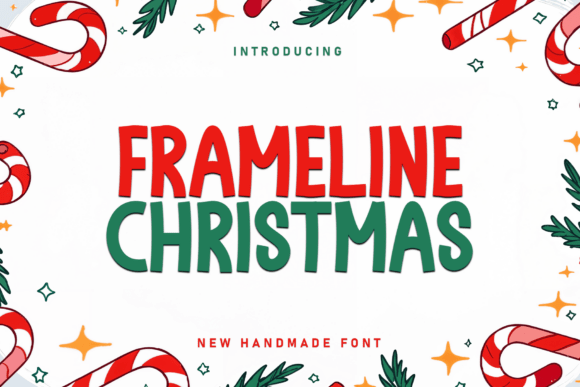
Introducing Christmas Frameline Font: The Ultimate Holiday Decorative Font
Are you looking for a font that embodies the spirit of Christmas? Look no further than Christmas Frameline Font, a festive, handmade font that’s bursting with playful holiday cheer. This bold, chunky, and whimsical font is designed to bring warmth and joy to all your seasonal creations, making it the perfect addition to your holiday design projects.
The Charm of Handmade Design
Christmas Frameline Font boasts a hand-crafted style that gives it a cozy, nostalgic charm. The font’s unique, handmade aesthetic makes it feel like a vintage holiday decoration, evoking memories of Christmases past. Yet, despite its classic look, the font remains super legible, ensuring that your holiday messages are conveyed clearly and effectively.
Ideal for Holiday Projects
Christmas Frameline Font is incredibly versatile and can be used for a wide range of holiday projects. Here are some ideas to get you started:
- Holiday Cards: Add a personal touch to your Christmas cards with this charming font. Use it for the main message or as a decorative element to make your cards stand out.
- Kids’ Projects: Bring festive fun to kids’ holiday crafts, such as making decorations, writing letters to Santa, or creating holiday-themed artwork.
- Gift Tags: Add a handmade, personal touch to your gifts with Christmas Frameline Font. It’s the perfect way to make your presents feel extra special.
- Wrapping Paper: Create custom holiday wrapping paper with this festive font. It’s a great way to add a personal touch to your gifts.
- Festive Social Media Posts: Spread holiday cheer on social media with Christmas Frameline Font. Use it to create eye-catching posts, stories, and reels that capture the spirit of the season.
Pairing Perfection
Christmas Frameline Font pairs perfectly with Christmas illustrations and bright palettes, making it easy to create cohesive and visually appealing designs. The font’s vibrant, energetic design complements traditional holiday colors like red, green, and gold, as well as more modern palettes featuring pastel shades and metallic accents.
Bringing Joy to Your Designs
Frameline Christmas brings a handcrafted smile to every joyful December design. With this font, you can create holiday designs that feel truly special and meaningful. Whether you’re a designer, crafter, or simply someone who loves the holiday season, Christmas Frameline Font is the perfect tool to help you spread cheer and make the most of this special time of year.
Key Features of Christmas Frameline Font
- Handmade, festive design: A unique, hand-crafted font that embodies the spirit of Christmas.
- Bold, chunky, and whimsical: A playful font that’s perfect for creating eye-catching holiday designs.
- Super legible: Clear and easy to read, even at smaller sizes.
- Ideal for holiday projects: Perfect for use in holiday cards, kids’ projects, gift tags, wrapping paper, and festive social media posts.
- Pairs well with Christmas illustrations and bright palettes: Easy to pair with traditional holiday colors and illustrations.
Christmas Frameline Font is a must-have for anyone looking to add a touch of festive fun to their holiday designs. With its handmade, whimsical design and bold, chunky aesthetic, this font is sure to bring warmth and joy to all your seasonal creations. So why wait? Get creative with Christmas Frameline Font and make this holiday season one to remember!